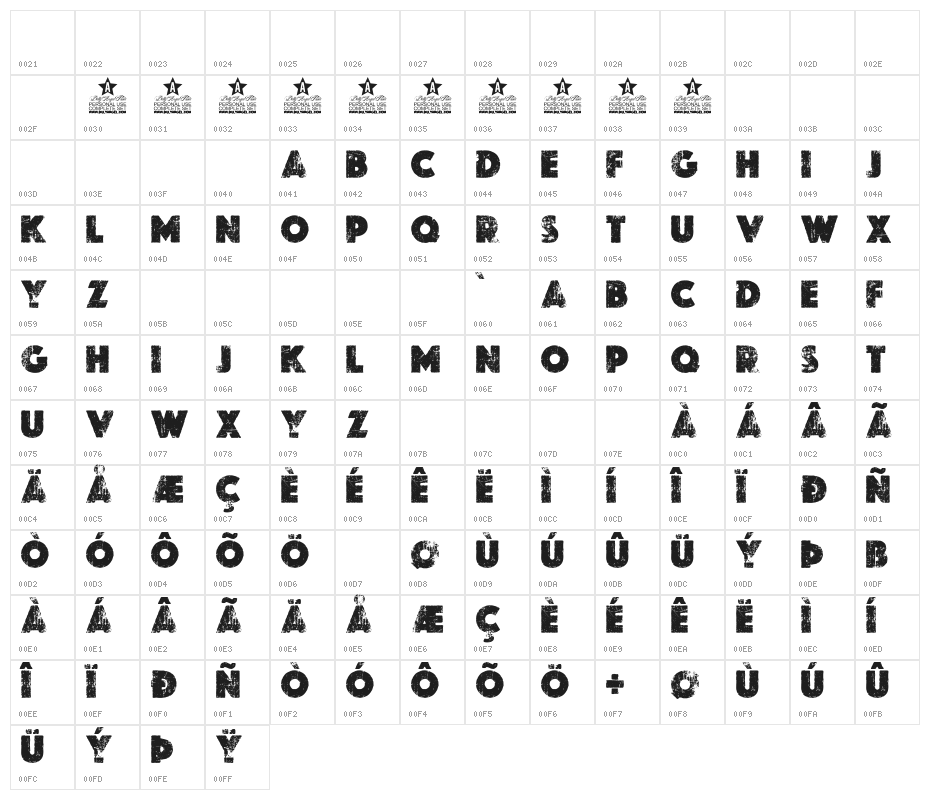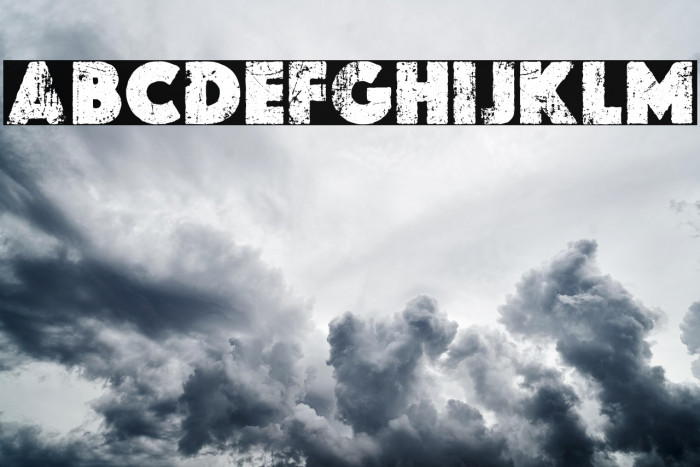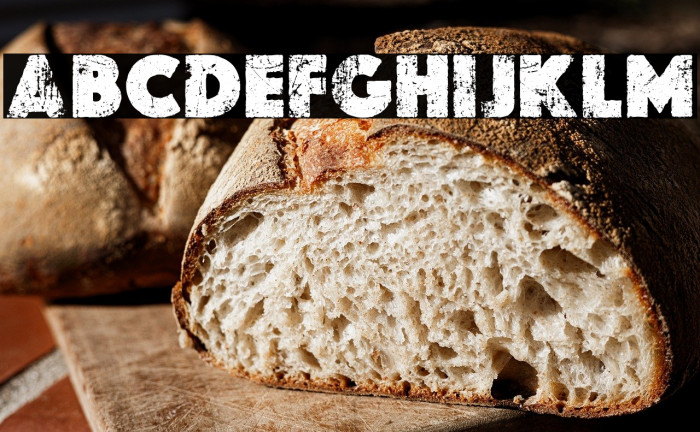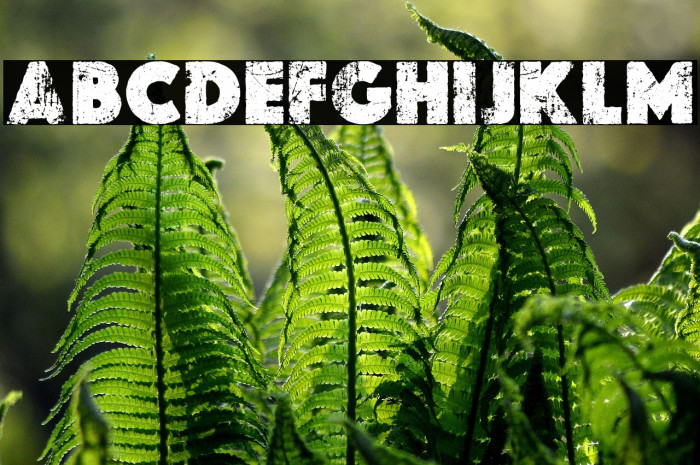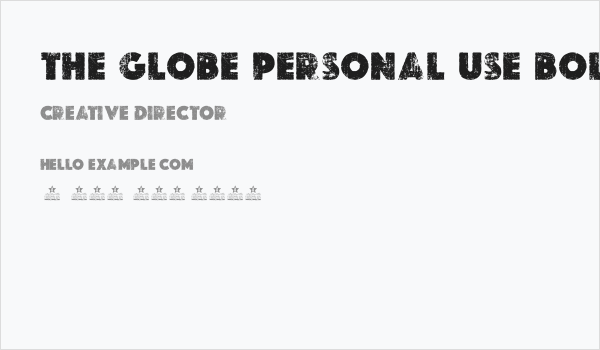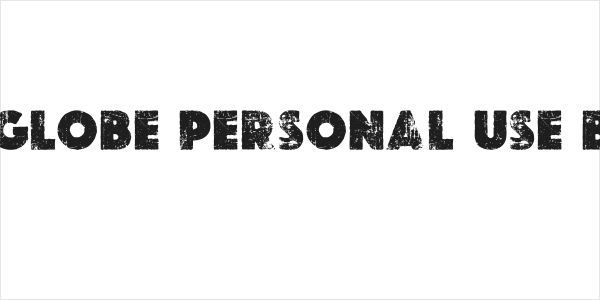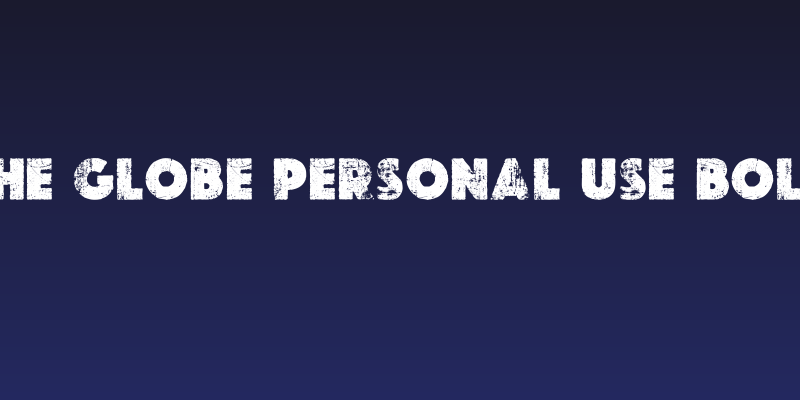
THE GLOBE PERSONAL USE Bold Font
THE GLOBE PERSONAL USE Bold Description
This font features a bold, distressed style with a textured appearance that gives it a rugged, vintage feel. The uppercase letters are prominently displayed with a rough, uneven surface, suggesting a worn or weathered look. The characters are wide and bold, making them stand out with a strong presence. The font's unique texture adds character and depth, making it suitable for designs that require a bold statement or an aged, industrial aesthetic. The overall style is both eye-catching and distinctive, perfect for projects that aim to capture attention with a gritty, authentic vibe.
| Proposed Projects | Ideal for posters, album covers, branding for vintage or industrial-themed products, and any design needing a bold, textured statement. |